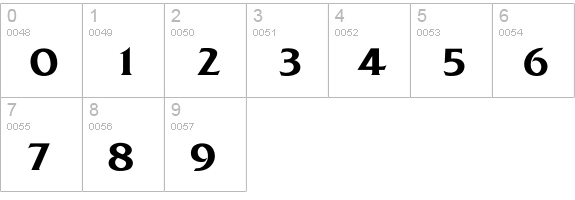
Silver Font Details
Introducing Silver font, a captivating typeface that exudes elegance and sophistication. Designed with meticulous attention to detail, this font is the perfect blend of modern aesthetics and timeless charm. The Silver font boasts a unique combination of sleek lines and refined curves, making it a versatile choice for a wide range of projects. Whether you're designing a logo, creating a website, or crafting invitations, this font will effortlessly elevate your designs to new heights. With its clean and legible characters, Silver font offers exceptional readability across various mediums. From headlines to body text, this font ensures that your message is effortlessly conveyed to your audience. Its smooth and polished appearance adds a touch of professionalism to any project, making it a go-to choice for designers and creatives alike. And the best part? Silver font is available for free download exclusively at FontsMarket.com. Yes, you read that right! You can now enjoy the beauty and versatility of this stunning font without spending a dime. Simply head over to FontsMarket.com and get ready to enhance your designs with this remarkable typeface. So, whether you're a seasoned designer looking to add a touch of sophistication to your creations or a beginner eager to make a lasting impression, Silver font is the perfect companion. Download it for free at FontsMarket.com and let your creativity shine.